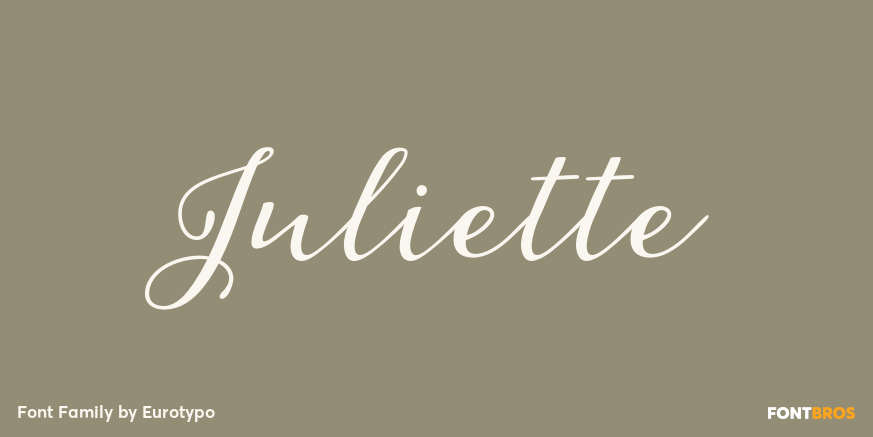
HomeFont BrosContemporaryJuliette ContemporaryScripts: CasualScripts: FormalHandwritten Juliette FacebookXPinterestWhatsApp 1 of 1 About Juliette is a script font with full OpenType features. This font contain 602 glyphs carefully drawn and programed.  DOWNLOAD ON FONT BROSThis font is sold and delivered by Font Bros. Font Canyon may earn a commission if you buy through this link. People also explored Gorgeous Font Gingerly Font Uncle Font Big Glitch Icon Font Hey Beauty Font Sunshine Family Font Dream Notes Font Snow Land Font Panbers Font 245 0 TagsJuliette Font Previous articleCivane SerifNext articleAdios Script Pro LEAVE A REPLY Cancel reply Comment: Please enter your comment! Name:* Please enter your name here Email:* You have entered an incorrect email address! Please enter your email address here Website: Save my name, email, and website in this browser for the next time I comment. Personal Use Free Lumber Personal Use Free Read more about this font Nouradilla Script Free Version Personal Use Free Read more about this font True Love Personal Use Free Read more about this font Jilliant Personal Use Free Read more about this font BLOG Elegant Wedding Invitation Fonts – Handwritten & Script Fonts Elegant Wedding Invitation Fonts Your wedding day is one of the most important moments of your life, and every detail matters—including your invitation design. Our... How to Install and Use Fonts on Windows, macOS, and Web Projects Where to Buy American Fonts Online in 2024 Free Fonts Risk: Why Free Fonts Can Be Dangerous for Designers